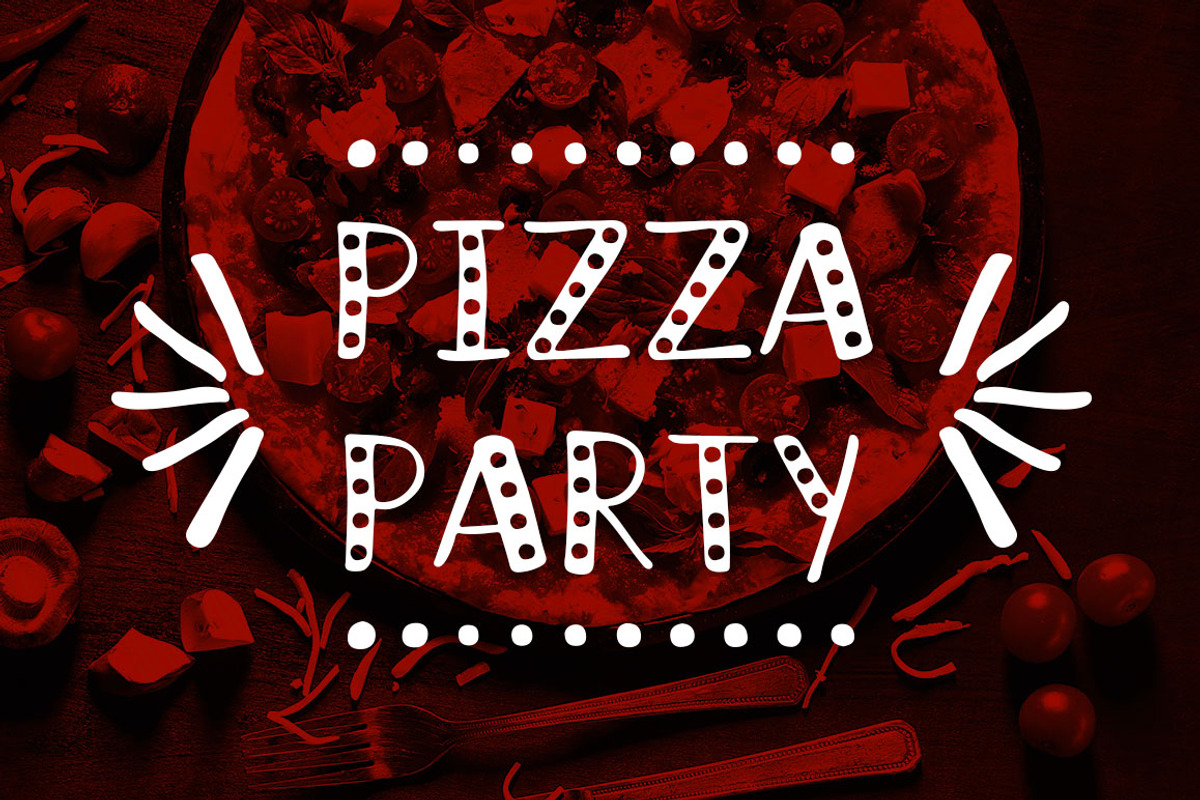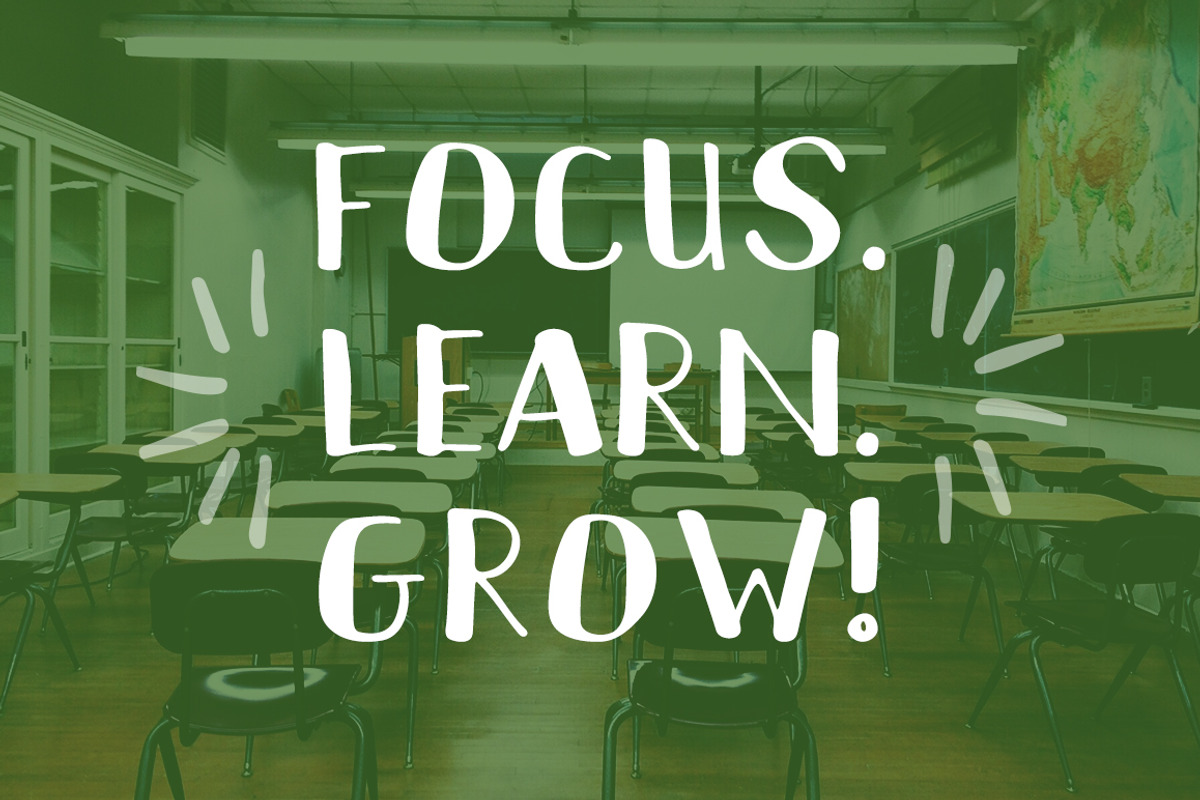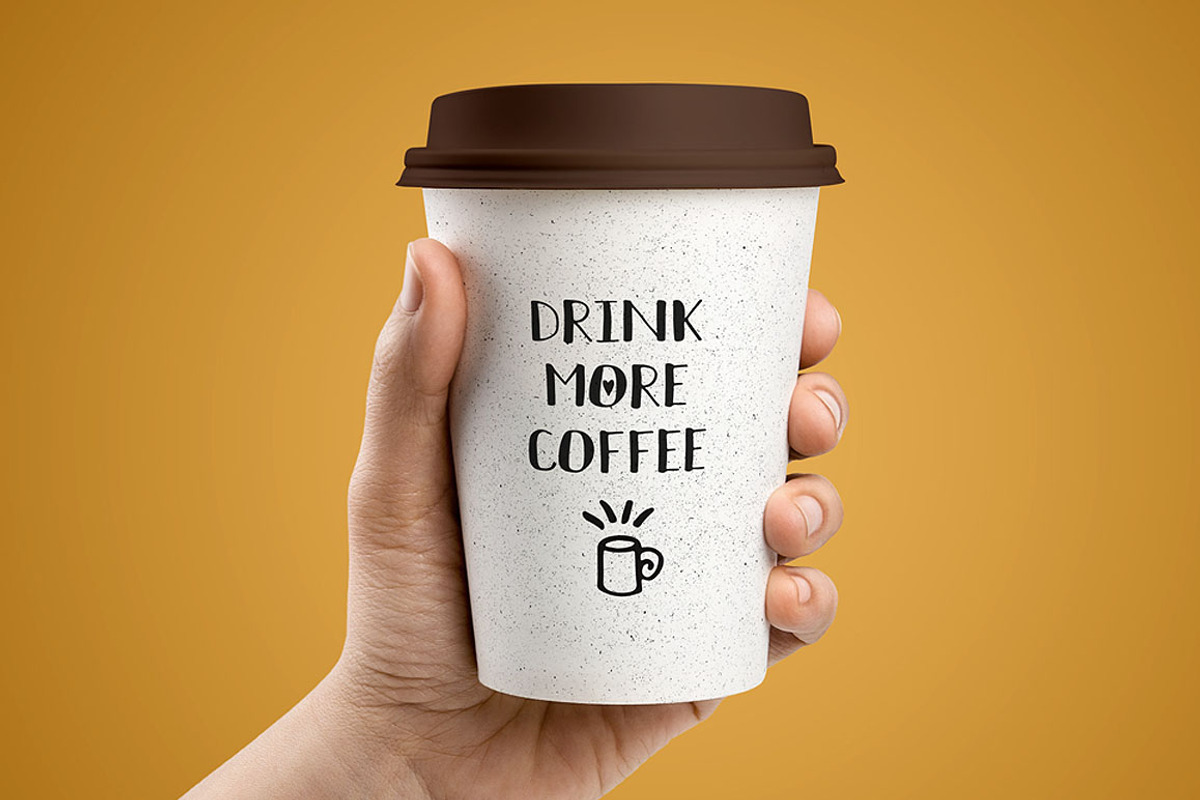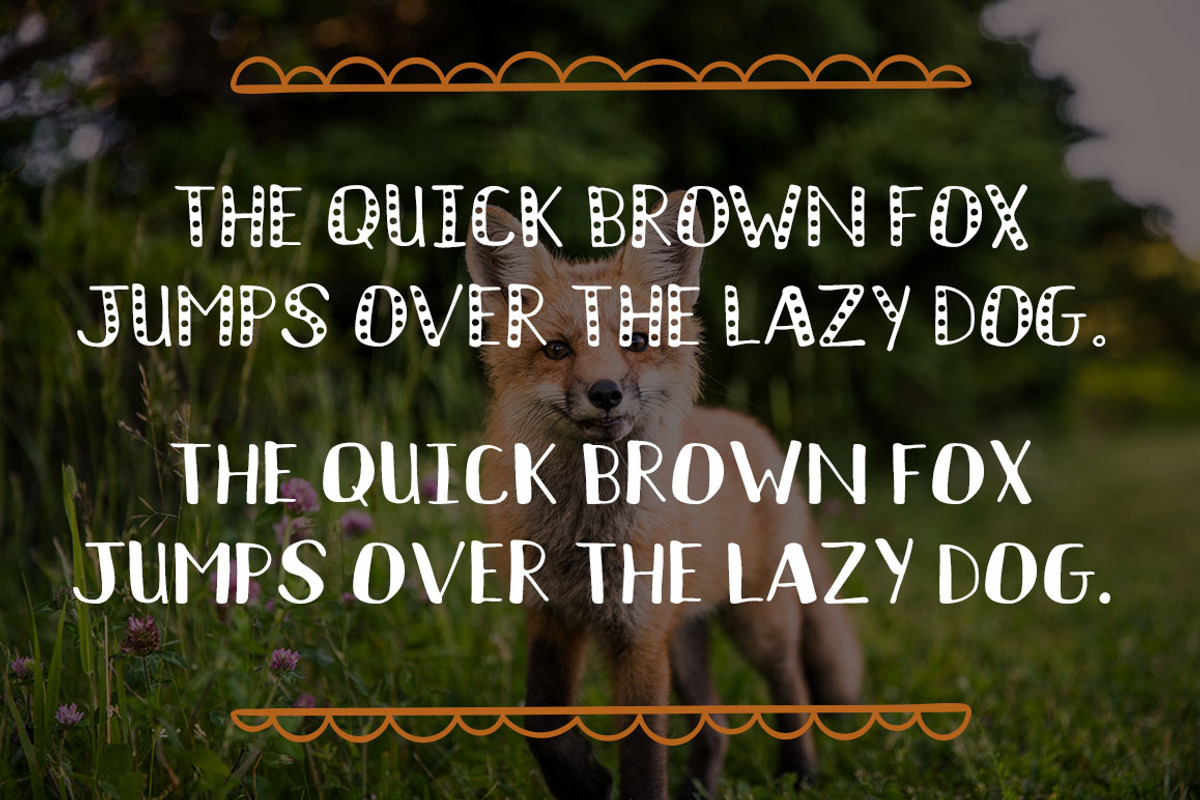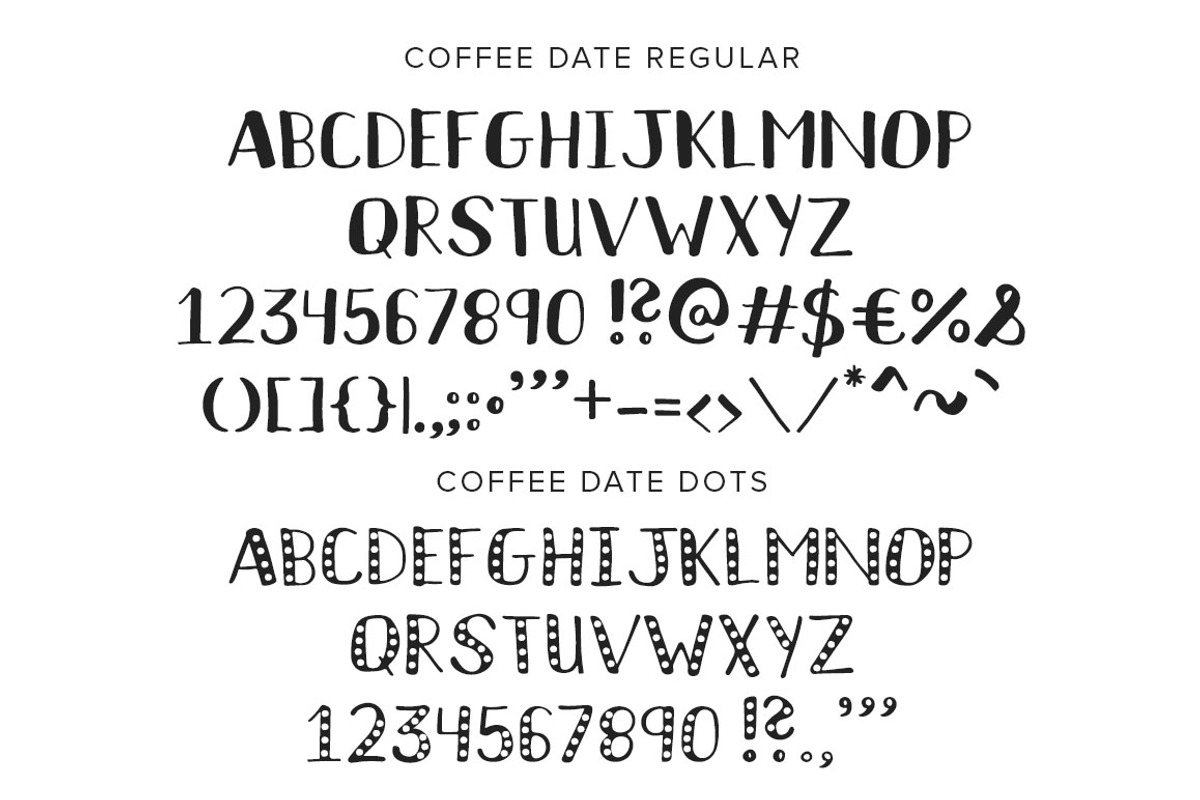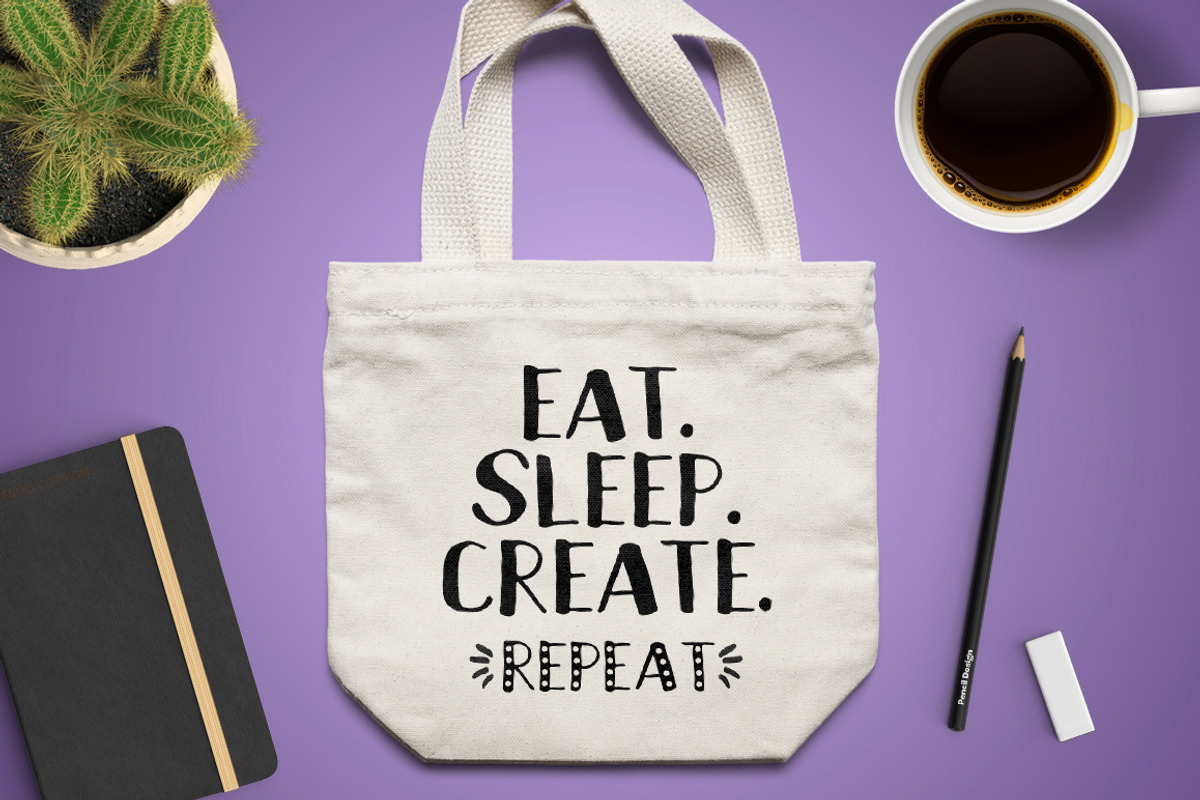
Coffee Date Font Duo + BONUS
Introducing COFFEE DATE, an all caps handwritten font duo with over 125 BONUS "Napkin Doodles" graphic elements to alter and edit and play with as needed! Coffee Date Regular includes all caps, punctuation, and numbers. Coffee Date Dots includes all caps, limited punctuation, and numbers. Mix and match as needed! This fun, quirky, unique typeface can be used in personal and commercial projects.
- Coffee Date Regular includes all caps, punctuation, and numbers.
- Coffee Date Dots includes all caps, limited punctuation, and numbers.